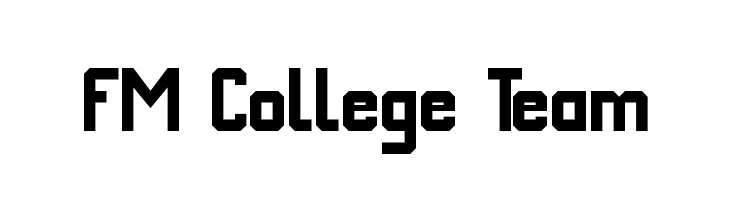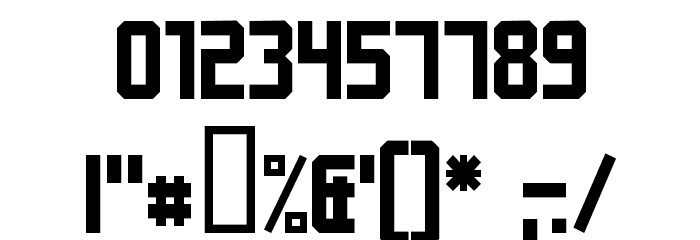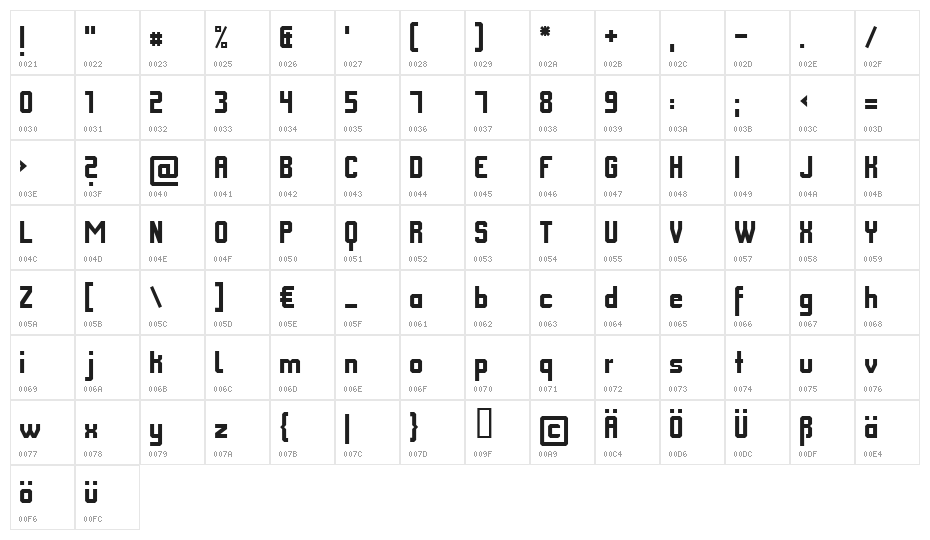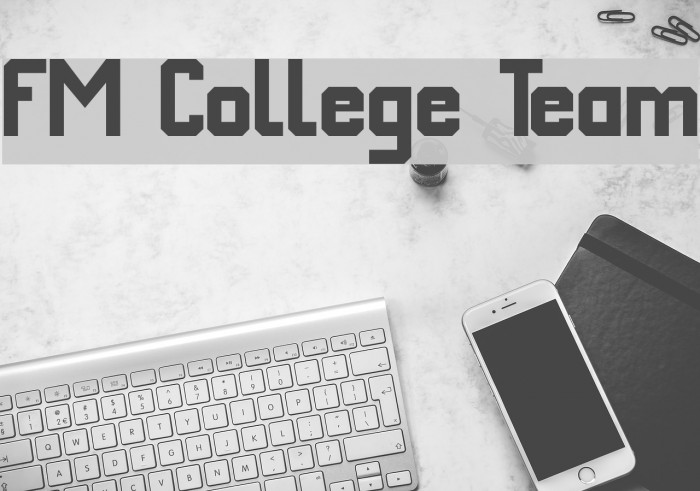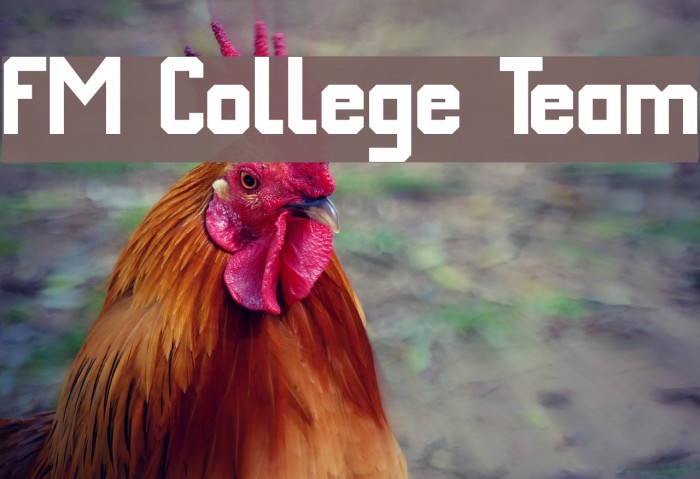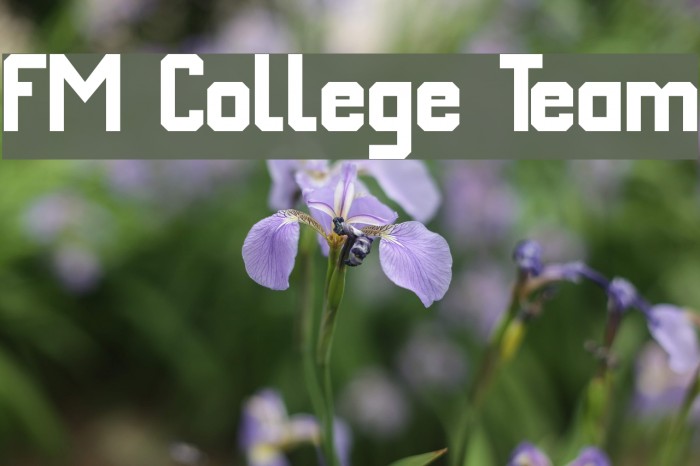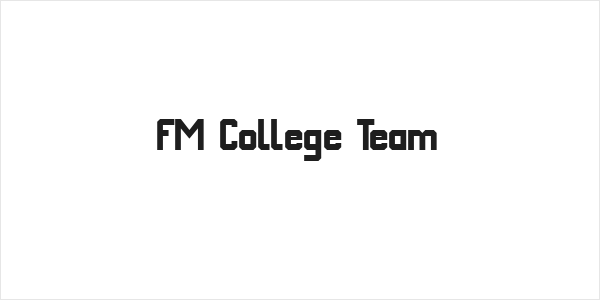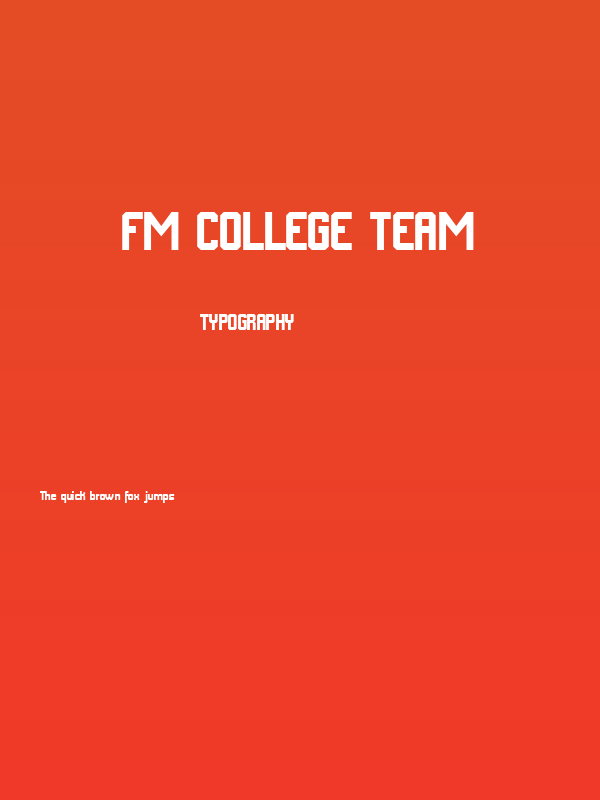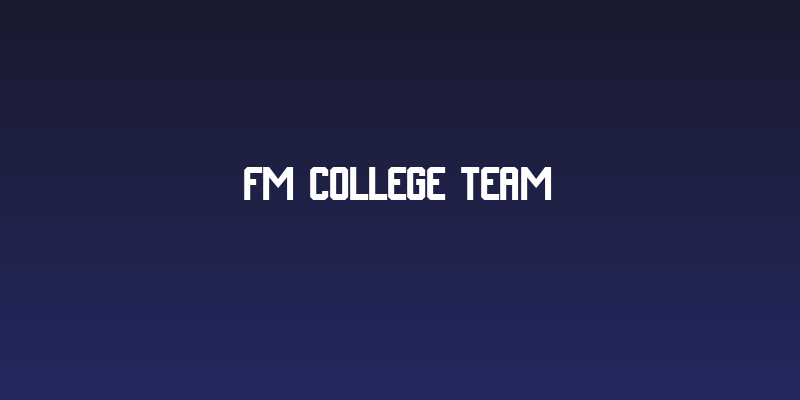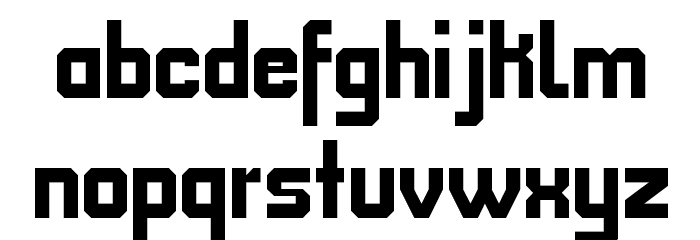
FM College Team Font
FM College Team Description
This font features a bold, geometric style with strong, angular lines and a collegiate aesthetic. The uppercase letters are uniform in height, creating a cohesive and structured appearance. The lowercase letters maintain the same angular design, providing consistency across the typeface. Numbers are similarly bold and geometric, ensuring readability and impact. Special characters are designed to match the overall style, with sharp edges and a robust presence. This font is ideal for projects that require a strong, authoritative look, such as sports team branding or college-themed designs.
Proposed ProjectsIdeal for sports team branding, college-themed designs, posters, and merchandise.